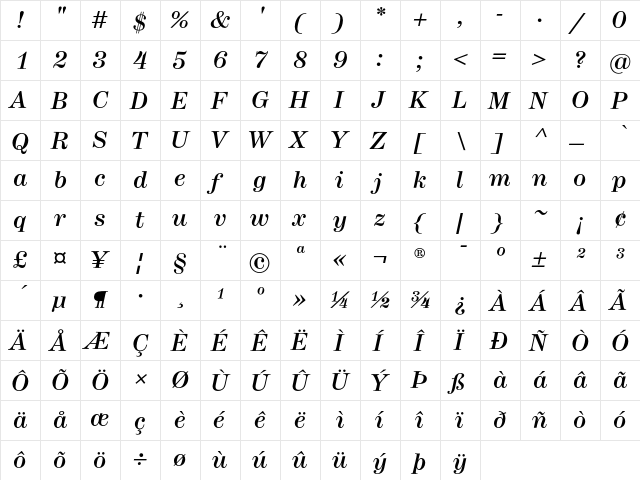
Hercules Medium Medium Italic
| Style | Medium Italic |
| Foundry | Frantisek Storm,https://www.stormtype.com |
Design Context for Hercules Medium Typeface
Hercules Medium takes a measured approach to typography — its balanced proportions and neutral character make it a reliable workhorse for both digital and print work. The dynamic lean of this cut emphasises speed and emphasis in any layout.
Pro Tip: Try Hercules Medium for annotation and caption copy alongside an upright companion — the contrast in angle creates a dynamic but ordered typographic system.